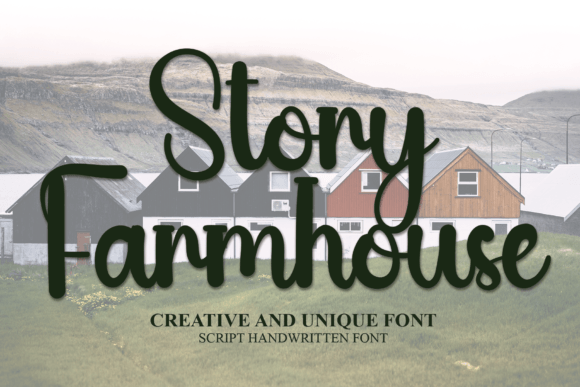
In search of a font that exudes charm, warmth, and a touch of whimsy? Look no further than Story Farmhouse Font, the exquisite script font from the creative genius of Strongkeng Old. Inspired by the tranquil beauty of farms and the joy of rustic weddings, Story Farmhouse Font is not just a font; it's an experience, a journey into a world where simplicity and elegance dance together.
Picture this: Your wedding invitations adorned with Story Farmhouse Font, the letters flowing like a gentle breeze, carrying your heartfelt words to your loved ones. The font's distinct character, reminiscent of a handwritten note, adds an intimate and personal touch, making your invitations truly one-of-a-kind. The unique ligatures and swashes create a visual symphony, enchanting the eyes and leaving a lasting impression.
Story Farmhouse Font is more than just a pretty face; it's a versatile workhorse that adapts seamlessly to a wide range of design projects. From cheerful greeting cards and eye-catching posters to whimsical logos and captivating branding, Story Farmhouse Font brings its unique charm to every creation. Its playful yet sophisticated style adds a touch of magic to any project, transforming the ordinary into the extraordinary.
With its unwavering commitment to quality, Story Farmhouse Font ensures crisp, clean lines and smooth curves, even at large sizes. Whether you're designing for print or digital, Story Farmhouse Font retains its charm and legibility, ensuring your message shines through.
So, let Story Farmhouse Font be your creative companion, guiding you through the world of design with its captivating grace. Embrace the artistry and let your imagination soar as you create designs that resonate with warmth and joy. Experience the magic of Story Farmhouse Font today and see your creativity flourish like never before.